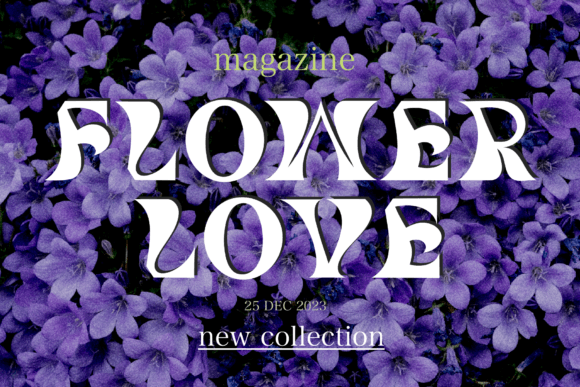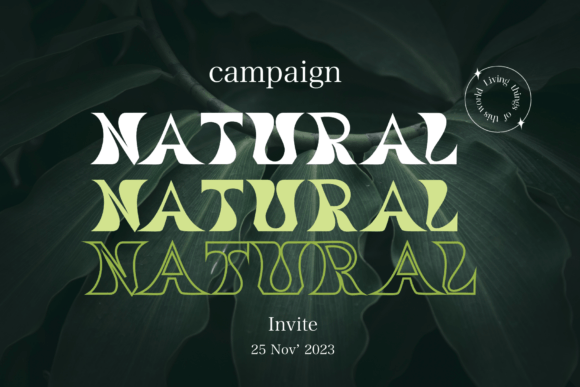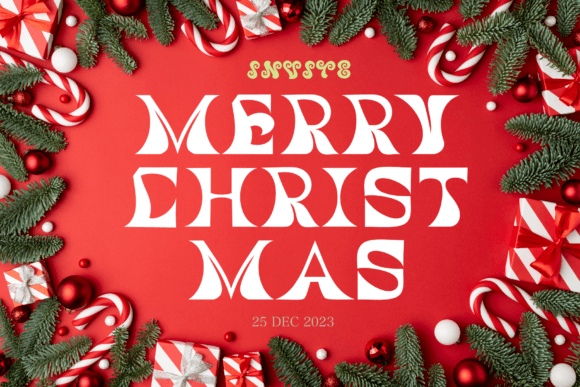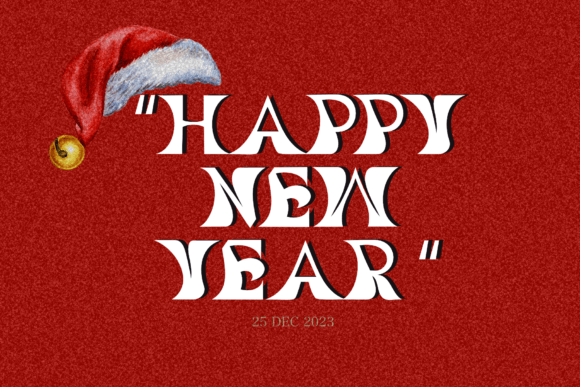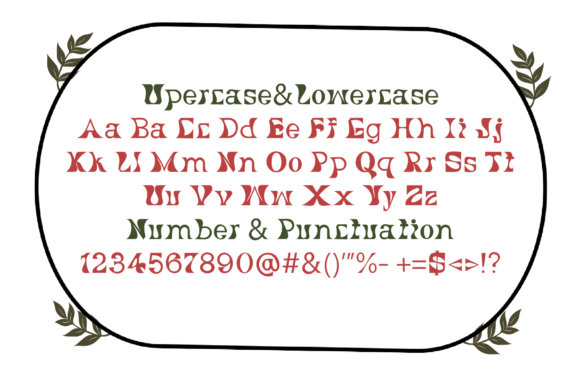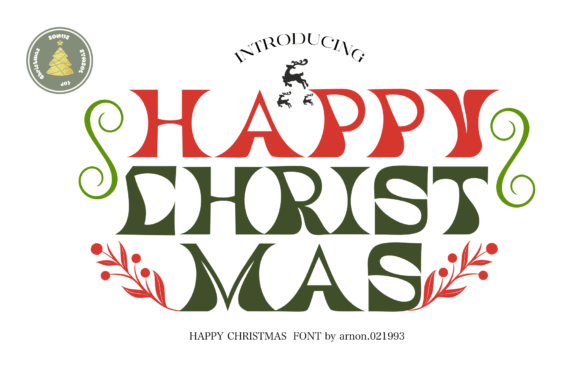
Happy Christmas Font: Spread Holiday Cheer with this Whimsical Typeface
Are you looking for a font that embodies the spirit of Christmas? Look no further than the Happy Christmas font! This modern, whimsical typeface is designed to bring a touch of holiday cheer to your words, making it perfect for adding a festive flair to your holiday designs. With its playful curves and wavy lines, Happy Christmas is sure to spread warmth and merriment in a stylish and contemporary way.
The Inspiration Behind Happy Christmas Font
The Happy Christmas font is inspired by the joy and magic of the holiday season. Its creator aimed to capture the essence of Christmas in every letter, resulting in a typeface that is both festive and fun. The font’s playful curves are reminiscent of a joyous sleigh ride, evoking feelings of happiness and excitement. Whether you’re designing holiday cards, gift tags, or social media graphics, Happy Christmas is the perfect choice to add a touch of whimsy and cheer to your projects.
Key Features of Happy Christmas Font
So, what makes Happy Christmas font so special? Here are some of its key features:
- Whimsical and festive design: Happy Christmas font boasts a unique, wavy design that is sure to add a touch of holiday magic to your words.
- Playful curves: The font’s playful curves are reminiscent of a joyous sleigh ride, making it perfect for capturing the spirit of Christmas.
- Modern and contemporary style: Despite its festive design, Happy Christmas font has a modern and contemporary style that will appeal to designers and crafters alike.
- Easy to read: Despite its whimsical design, Happy Christmas font is easy to read, making it perfect for use in a variety of applications, from holiday cards to social media graphics.
Using Happy Christmas Font in Your Designs
Happy Christmas font is incredibly versatile and can be used in a variety of applications, including:
- Holiday cards and invitations: Add a touch of festive cheer to your holiday cards and invitations with Happy Christmas font.
- Gift tags and wrapping paper: Use Happy Christmas font to add a personal touch to your gift tags and wrapping paper.
- Social media graphics: Add a festive flair to your social media graphics, such as holiday-themed Facebook posts and Instagram stories.
- Website and blog headers: Use Happy Christmas font to add a touch of holiday cheer to your website or blog headers.
Tips for Getting the Most Out of Happy Christmas Font
Here are some tips for getting the most out of Happy Christmas font:
- Experiment with different colors: Happy Christmas font looks great in a variety of colors, from traditional red and green to more modern shades like turquoise and coral.
- Pair with other festive fonts: Try pairing Happy Christmas font with other festive fonts to create a unique and eye-catching design.
- Use in combination with holiday graphics: Use Happy Christmas font in combination with holiday graphics, such as snowflakes and holly leaves, to create a festive and cohesive design.
In conclusion, Happy Christmas font is a whimsical and festive typeface that is sure to bring a touch of holiday cheer to your words. With its playful curves and modern design, it’s perfect for adding a festive flair to your holiday designs. Whether you’re a designer or crafter, Happy Christmas font is a great choice for spreading warmth and merriment in a stylish and contemporary way.